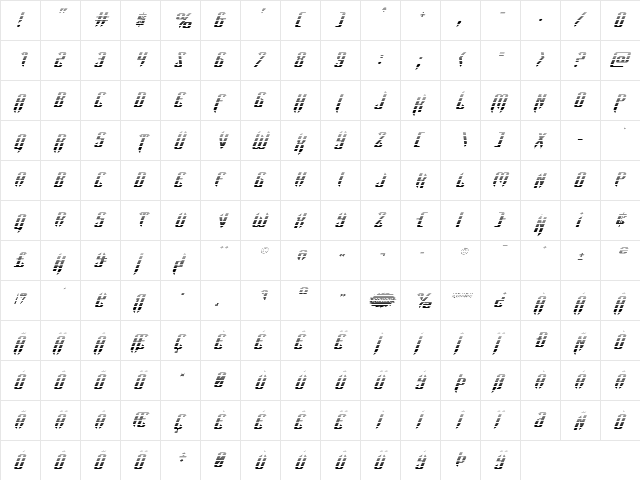
The Immortal Gradient Italic Italic
The Immortal Gradient Italic offers clean, dependable letterforms without strong stylistic allegiance, making it a practical choice for designers who need flexibility. Its italic angle brings a sense of urgency and motion to the letterforms.